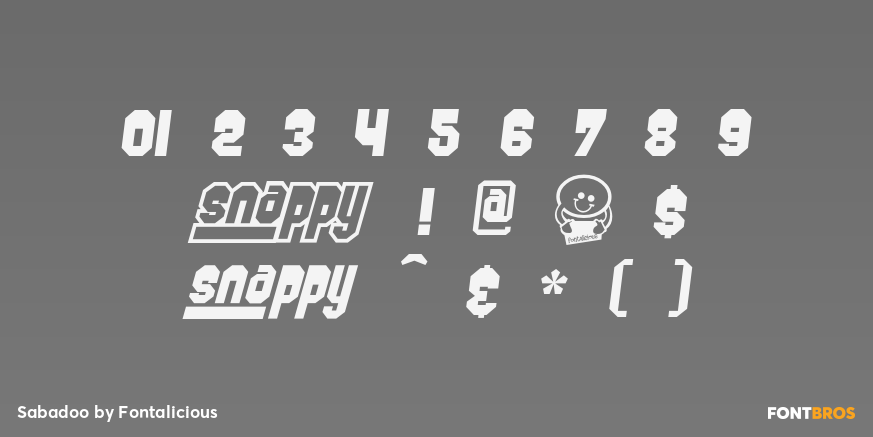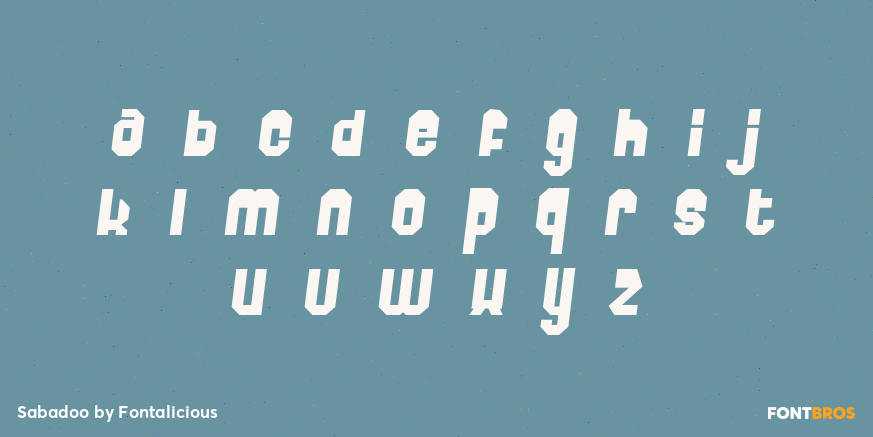
Sabadoo
Font Family by Fontalicious
Basically, here's what happened. I took a font, skewed it a little tiny bit, and then generated a new font. Oh yeah, I forgot, and I re-named it something different. But hey, its a brand new font and its absolutely free!